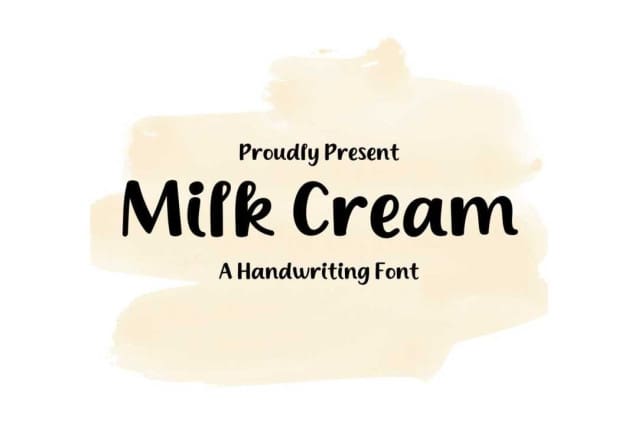
Milk Cream Font
Milk Cream Font is a chunky, comic, and cartoon display font. With its neat and joyful personality, this font will enhance any project you wish to create!